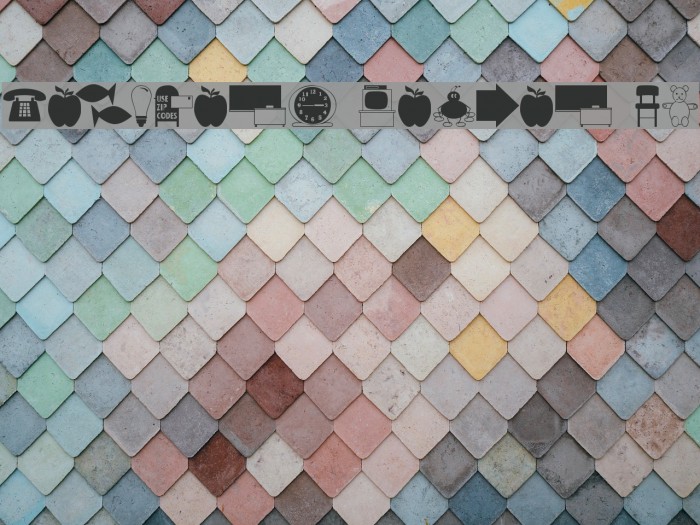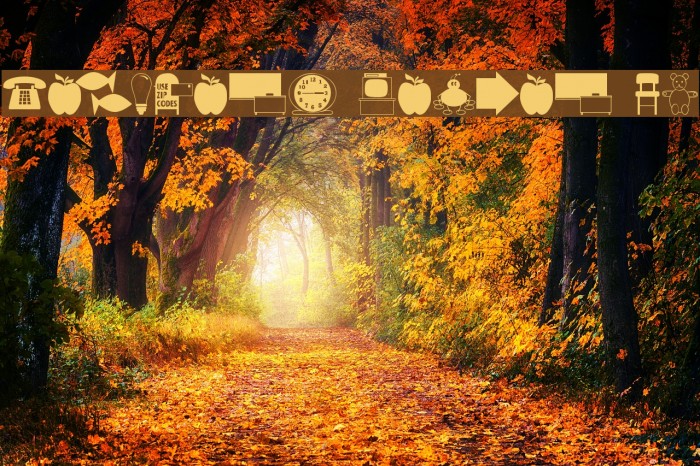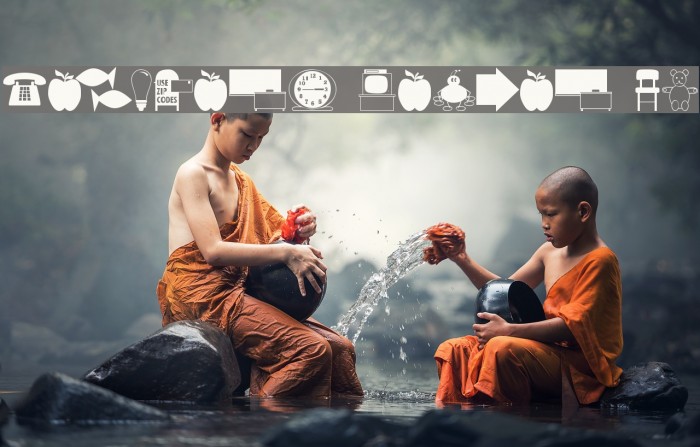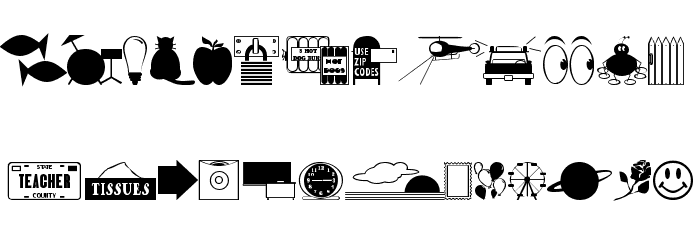
Teachers Helper JL Font
Teachers Helper JL Description
This is a decorative and playful dingbat font featuring a variety of school-themed and whimsical icons. The characters include images of clocks, umbrellas, computers, telephones, apples, and various other objects that might be found in a classroom or educational setting. Each symbol is distinct and bold, making them easily recognizable and suitable for creative projects. The icons are designed with a consistent style, providing a cohesive look across all characters.
A playful dingbat font with school-themed icons from Uncategorized fonts.
- Proposed Projects: Ideal for educational materials, classroom decorations, creative teaching aids, and playful graphic designs.
- Overall Style: Playful, Educational
- Use Case: Decorative elements, Educational materials